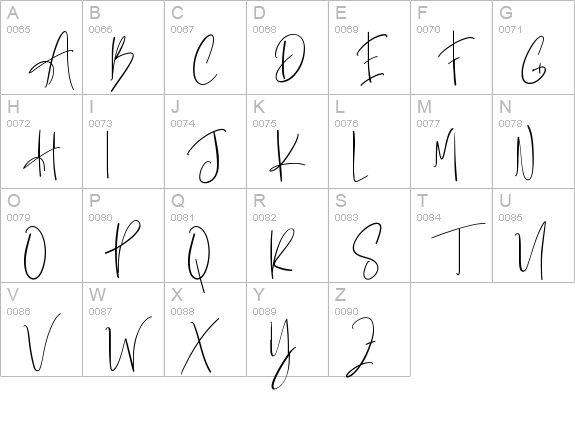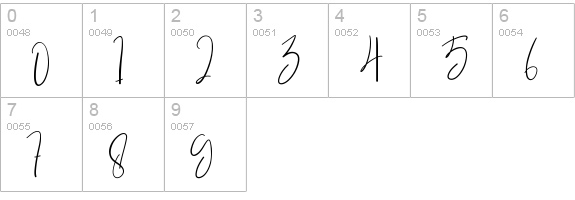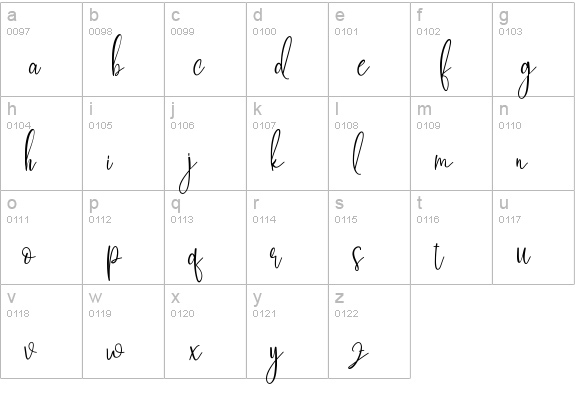
Bestie Signature font is a beautifully crafted typeface that exudes elegance and sophistication. With its stylish and modern design, this font is perfect for adding a touch of glamour to your projects. The smooth curves and flowing lines of Bestie Signature create a sense of fluidity and grace, making it ideal for various design applications such as invitations, logos, branding, and more.